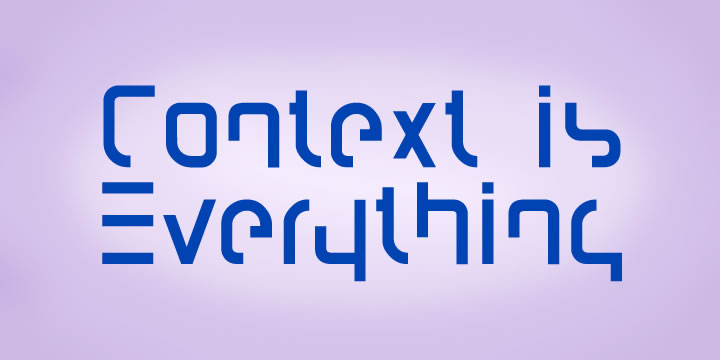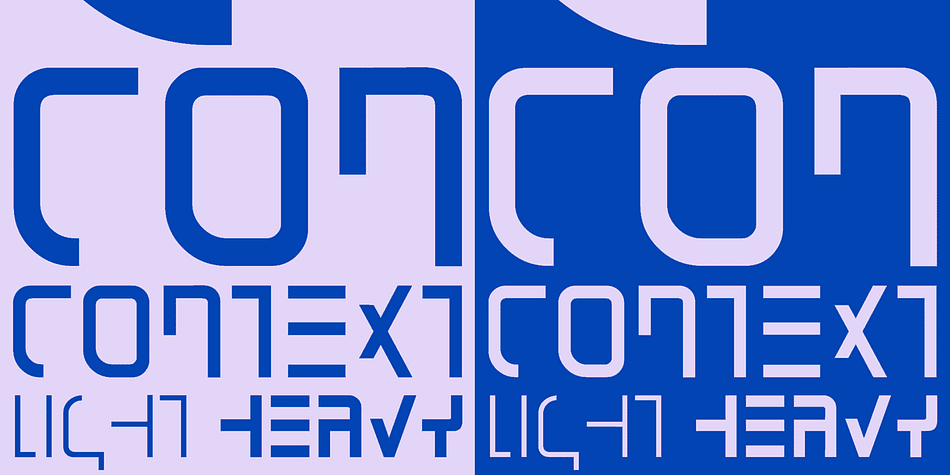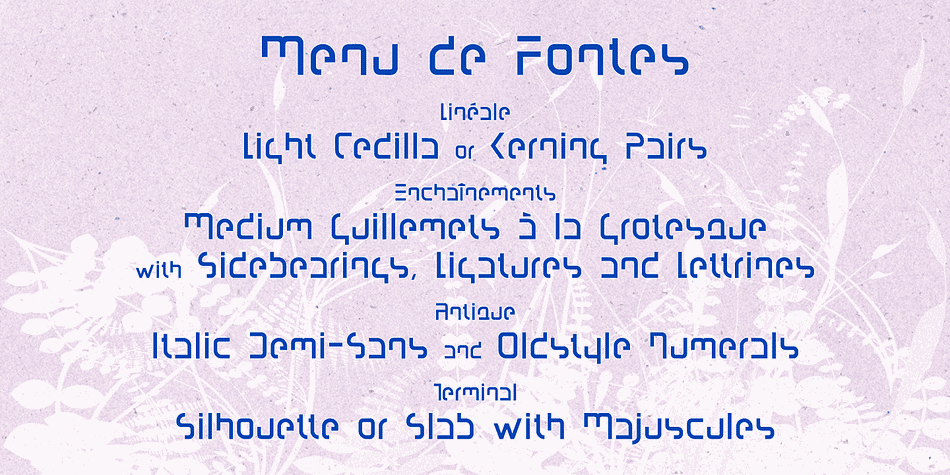
Context is a novelty font family. This typeface has four styles and was published by K-Type.
Modernism in miniature - How much of a letter can you omit and still retain the kernel of legibility? All
three weights of Context (plus an additional Outline version) remain surprisingly readable in the face
of some tortuous topiary.